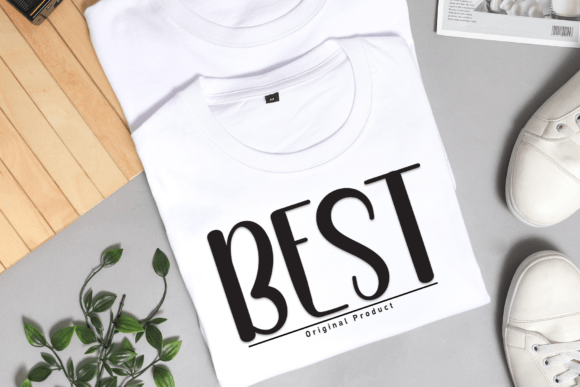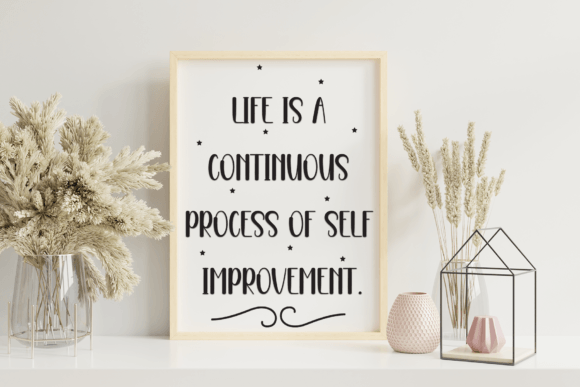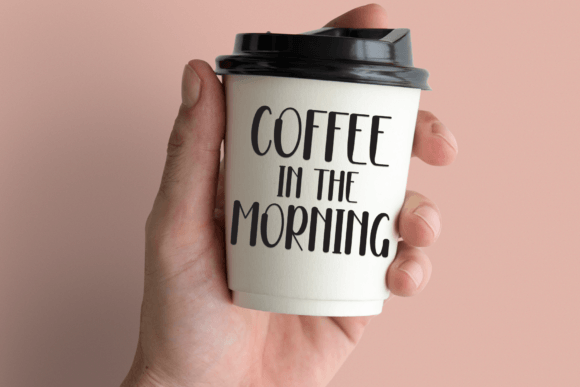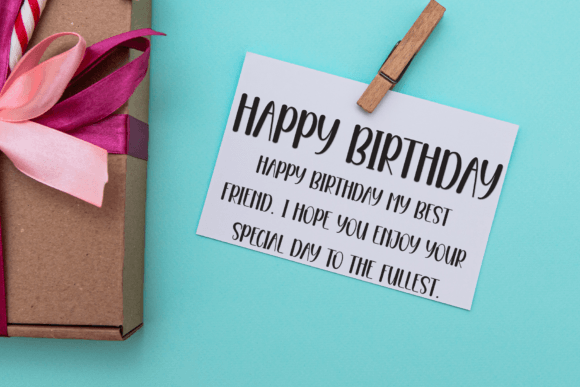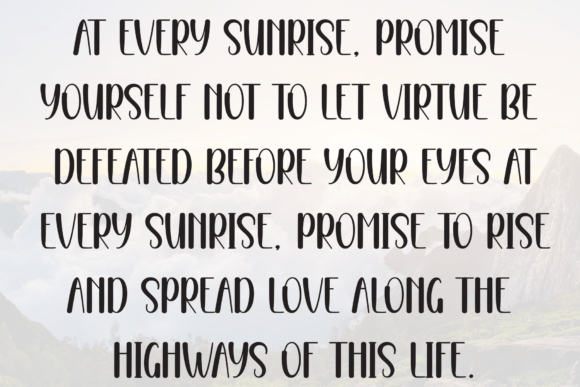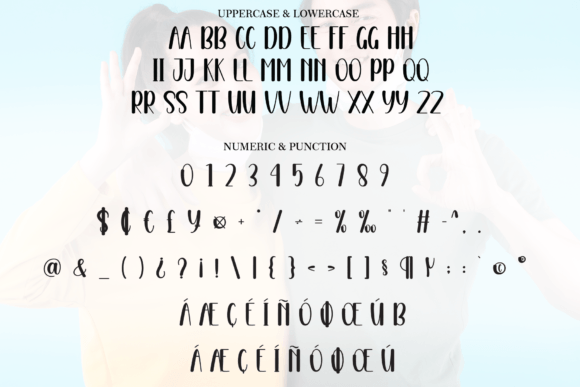
The Quest for the Perfect Font: Discovering Better Font
I still remember the time I was working on a wedding invitation project, and I just couldn’t find the right font to capture the sweet and playful vibe my client was looking for. I scoured through font libraries, tried out dozens of options, but nothing seemed quite right. That was until I stumbled upon Better Font, a sweet and friendly handwritten display font that instantly won me over. In this article, I’ll share my experience with Better Font, its features, and how to make the most of it in your designs.
An Honest Review of Better Font
Better Font is a beautiful, handmade font that’s perfect for adding a touch of whimsy to your designs. Here’s what I love about it:
- ✨ Sweet and friendly vibe that’s perfect for wedding invitations, cards, and other special occasions
- ✅ Highly legible, even at smaller sizes
- 🎉 Fun and playful, with a dash of elegance
Of course, no font is perfect, and Better Font has a few quirks:
- 🤔 Limited character set, which might not be suitable for very long texts
- ⚠️ Not ideal for body text, as it’s best used as a display font
How to Use Better Font: A Practical Guide
Better Font is a versatile font that can be used on various platforms. Here’s how to get started:
- Explore the font’s OpenType features, such as glyphs and stylistic alternates, to add more personality to your text
- Use the font’s various weights and styles to create visual interest and hierarchy
Better Font comes with a range of OpenType features and glyphs that can enhance your designs. Here are a few tips:
- Use the font’s stylistic alternates to create a more playful or elegant look
- Experiment with glyphs, such as flourishes and swashes, to add more personality to your text
- Take advantage of the font’s ligatures and kerning options to improve text flow and readability
The Story Behind Better Font
Better Font was designed with love and care by a talented type designer who wanted to create a font that’s both fun and elegant. Inspired by the beauty of handwritten letters, Better Font is the perfect blend of playfulness and sophistication.